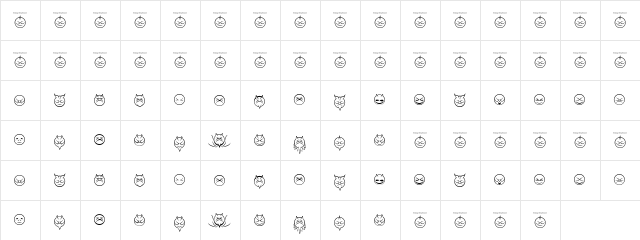
some devil faces Regular
| Foundry | Fonts by Chris Vile |
| Designer | Chris Vile |
Design Context for some devil faces Typeface
some devil faces is a composed and adaptable typeface that performs quietly and consistently across a wide range of design contexts.